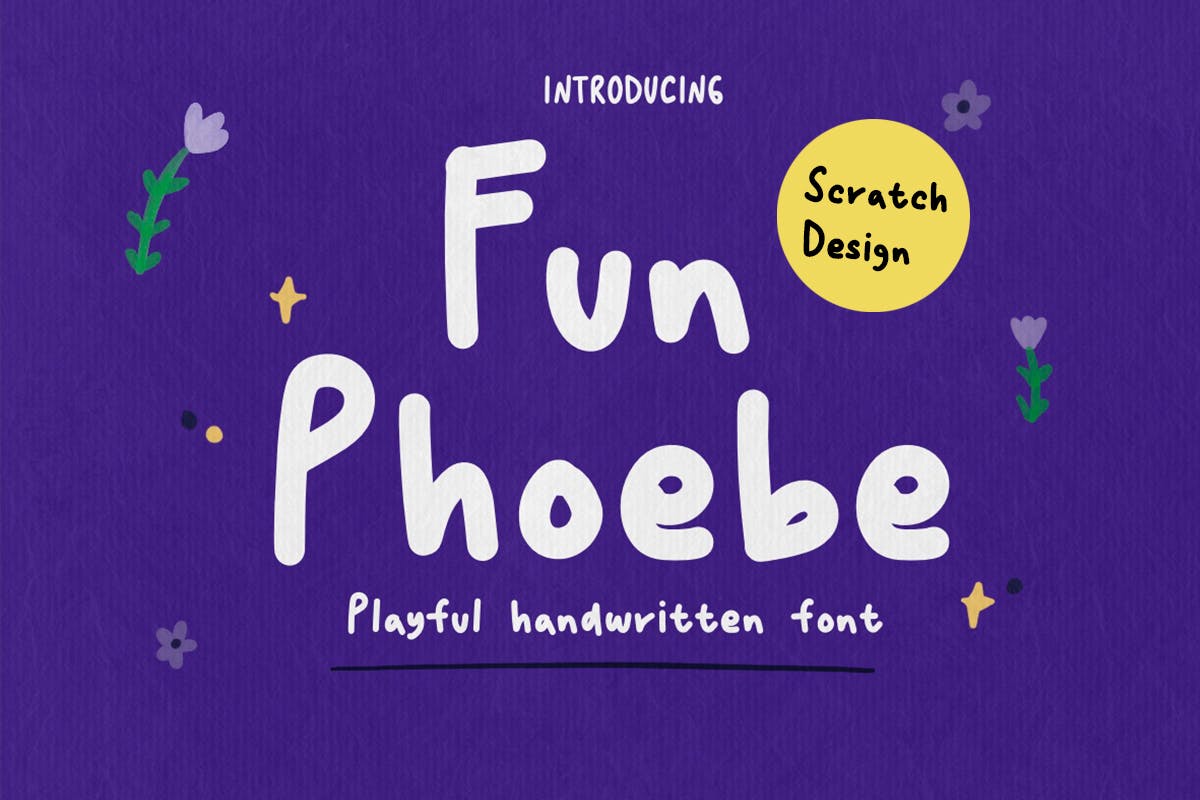
Fun Phoebe is a vibrant web font designed to add a playful touch to digital projects. With its normal spacing and large size, it is ideal for display and poster applications, ensuring that text stands out with a unique flair. This font enhances visual communication, making it perfect for creative designs that aim to capture attention and engage audiences.